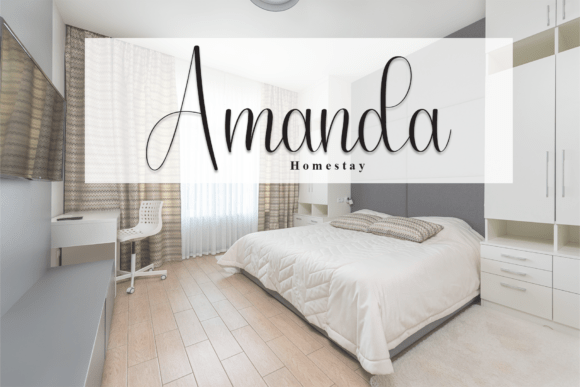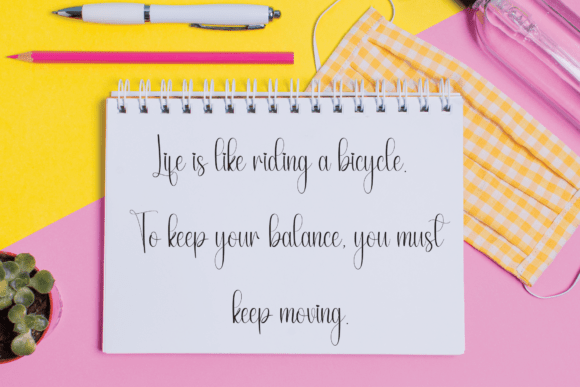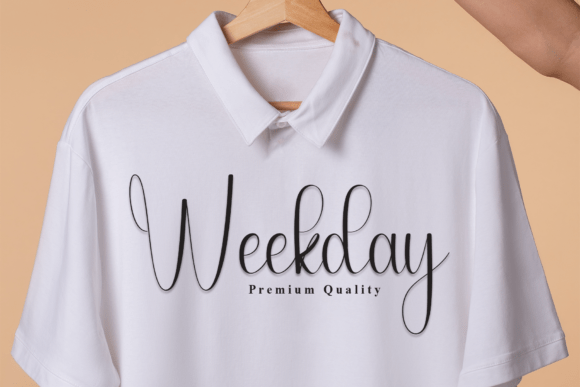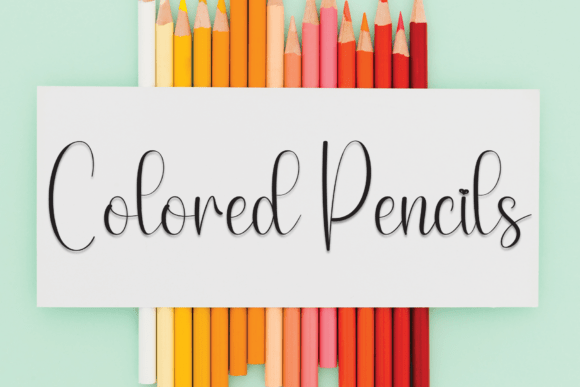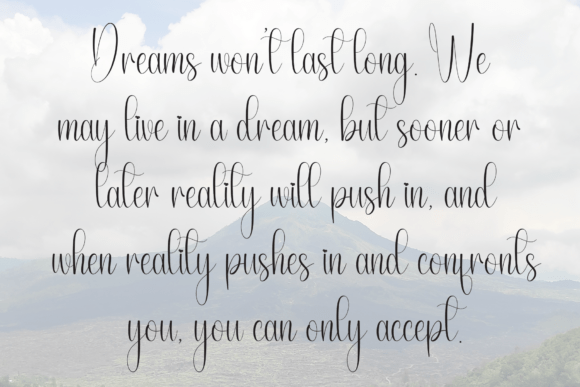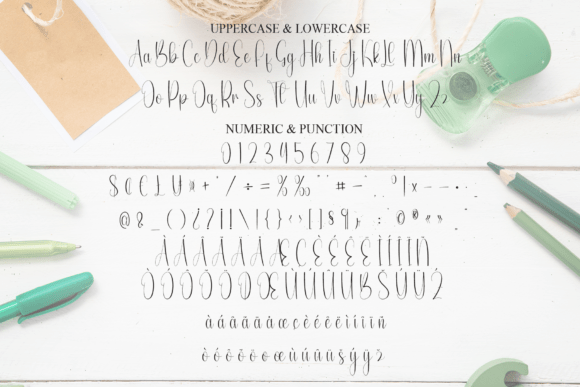
Introduction to Script Handmade Font
Immerse yourself in the delightful charm of our handwriting-inspired display font.
Encapsulating a sense of sweetness and friendliness, this font is a perfect visual storyteller It breathes life into wedding invitations and greeting cards, or any design project craving a dash of playful spirit.
Key Features of Script Handmade Font